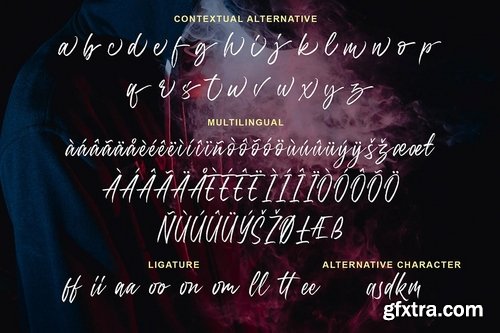
Introducing a new handwritting script called South Beast. South Beas came with open type features such contextual alternates, stylistic alternates, ligature, good for signature logo, wedding invitation, romantic quote, logotype, poster, social media kit, book cover, tshirt design, packaging and any more.